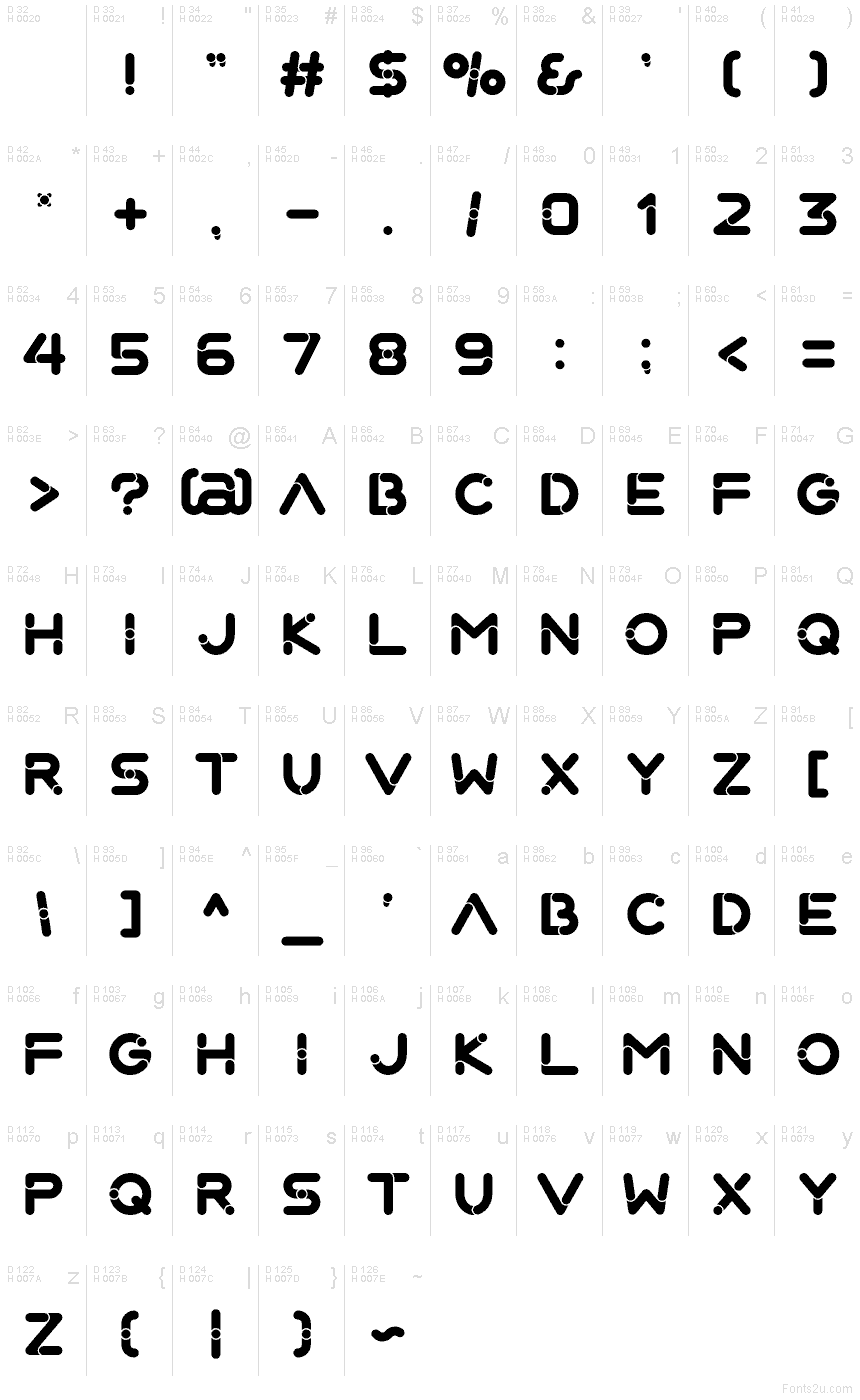
Nixmat
Nixmat font by Graphicfresh is a free techno display typeface. Its monoline, tubular strokes snap into place with rounded corners and tidy cutouts, creating a segmented rhythm that feels both futuristic and friendly. The shapes read like neon piping—sleek, glossy, and unmistakably modular—so headlines pop without turning cold or mechanical.
Using Nixmat, you get crisp impact for sci‑fi posters, app splash screens, esports logos, tech event branding, gadget packaging, and motion graphics titles. The spacing keeps forms legible at bold sizes, while the soft geometry adds approachability. For balance, pair this free font with a plain grotesk or system sans in smaller copy.